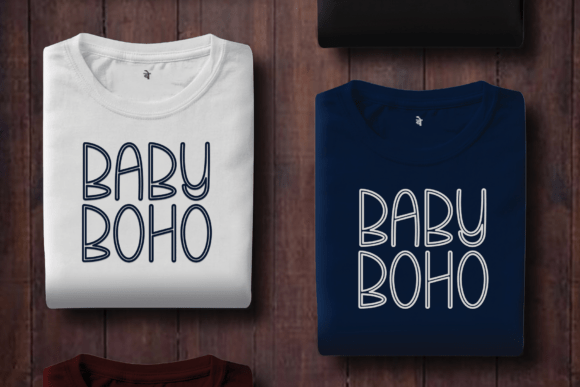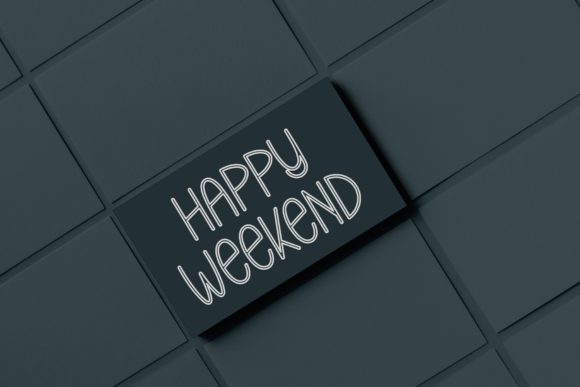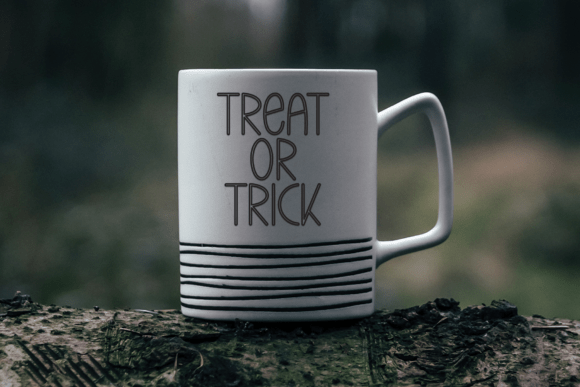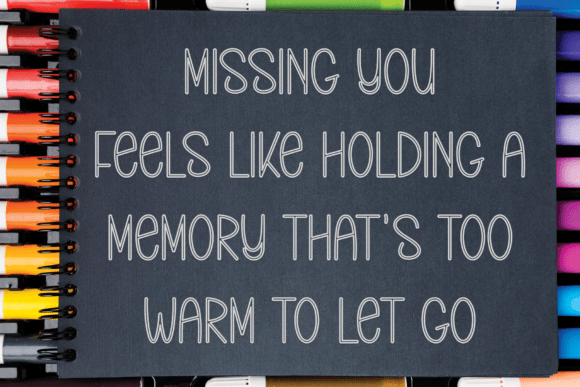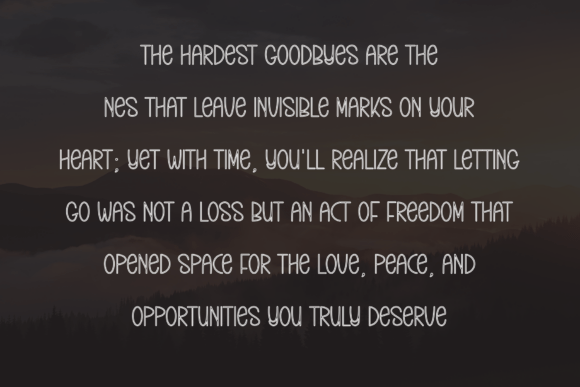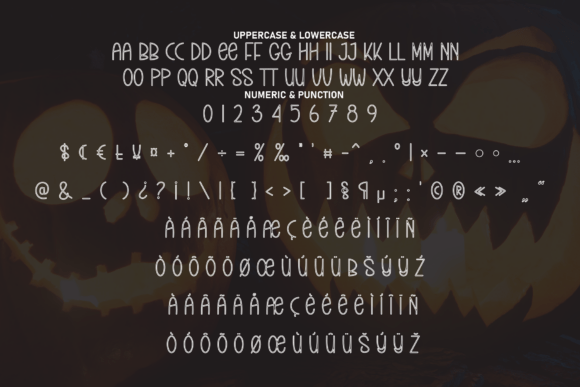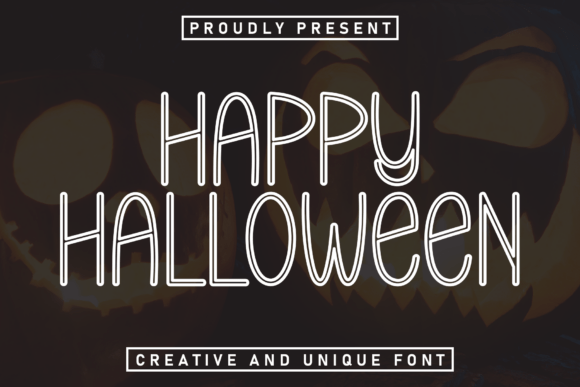
Happy Halloween Font: The Perfect Blend of Modern Simplicity and Playful Charm
As the spookiest time of the year approaches, designers and crafters are on the lookout for the perfect font to add a touch of Halloween magic to their projects. Look no further than the Happy Halloween Font, a casual display font that embodies the spirit of modern simplicity and playful charm. In this article, we’ll dive into the features and benefits of this versatile font, and explore how it can elevate your Halloween designs to the next level.
Clean Shapes, Soft Edges, and Well-Balanced Letterforms
The Happy Halloween Font boasts clean shapes, soft edges, and well-balanced letterforms that capture the essence of relaxed design while maintaining clarity and style. This unique combination makes it an ideal choice for a wide range of applications, from posters and branding to packaging and social media graphics. Whether you’re creating a spooky invitation, a festive flyer, or a howling good time on social media, this font is sure to impress.
Modern Simplicity Meets Playful Charm
What sets the Happy Halloween Font apart is its perfect blend of modern simplicity and playful charm. The font’s clean lines and minimalist approach make it instantly recognizable, while its soft edges and rounded shapes add a touch of whimsy and friendliness. This delightful combination makes it perfect for designers and crafters looking to add a fresh and approachable vibe to their projects.
Versatile and Eye-Catching
The Happy Halloween Font is incredibly versatile, making it suitable for a wide range of design projects. Its eye-catching appeal and excellent readability ensure that your message will get across, whether you’re designing a bold poster or a subtle social media graphic. With this font, you can create stunning visuals that are sure to grab attention and leave a lasting impression.
Whether you’re a seasoned designer or a crafty DIY enthusiast, the Happy Halloween Font is an excellent addition to your font library. Its user-friendly design and extensive character set make it easy to work with, while its unique style and charm will set your projects apart from the rest. From Halloween party invitations to spooky decorations, this font is the perfect choice for anyone looking to add a touch of personality to their designs.
Tips for Using the Happy Halloween Font
To get the most out of the Happy Halloween Font, here are a few tips to keep in mind:
- Use it for headlines and titles to add a touch of drama and flair to your designs.
- Pair it with complementary fonts to create visually appealing combinations.
- Don’t be afraid to get creative and try out new and innovative design ideas.
In conclusion, the Happy Halloween Font is an exceptional choice for designers and crafters looking to add a touch of modern simplicity and playful charm to their Halloween projects. With its clean shapes, soft edges, and well-balanced letterforms, this font is sure to impress. Its versatility, eye-catching appeal, and excellent readability make it perfect for a wide range of applications, from posters and branding to packaging and social media graphics. So why wait? Download the Happy Halloween Font today and get ready to create some spook-tacular designs!
Key Features of Happy Halloween Font:
- Clean shapes and soft edges for a modern and playful look.
- Well-balanced letterforms for excellent readability.
- Ideal for posters, branding, packaging, and social media graphics.
- Versatile and eye-catching, with a unique blend of modern simplicity and playful charm.
- Perfect for designers and crafters looking to add a fresh and friendly touch to their projects.
Whether you’re a designer, crafter, or simply a Halloween enthusiast, the Happy Halloween Font is sure to delight. So go ahead, get creative, and make this Halloween one to remember!